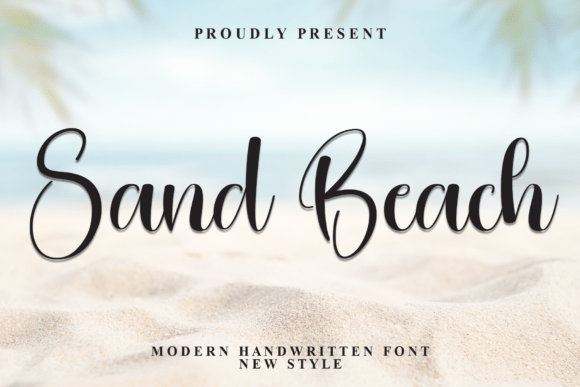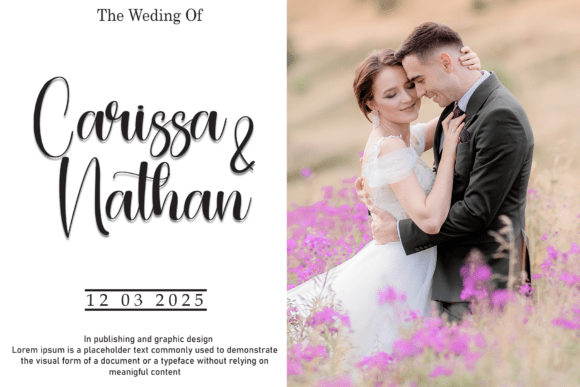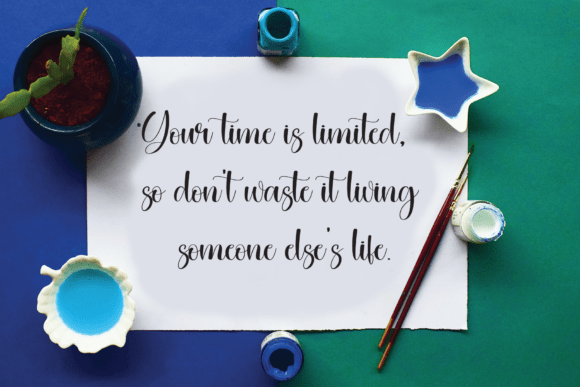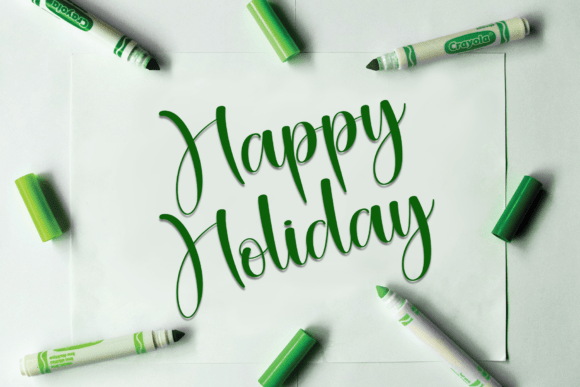
Sand Beach Font: Elegant Script Calligraphy for Wedding & Logo Design
About the Sand Beach Font
Explore the possibilities with Sand Beach Font, a font that offers both beauty and functionality. A confident script calligraphy font that balances modern style with smooth readability. It’s a perfect fit for logos, product packaging, fashion branding, and editorial design with flair.
Sand Beach Font Usage Examples
Sand Beach Font Example